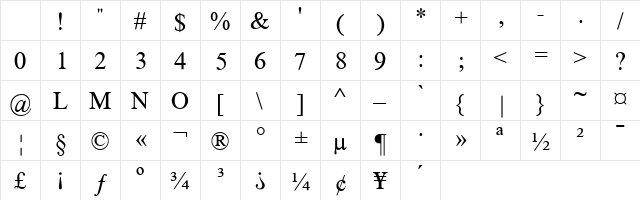
Complete Pak Nastaleeq Regular glyph index. Displaying only characters natively supported by Pak Nastaleeq Regular font.
Pak Nastaleeq is a composed and adaptable typeface that performs quietly and consistently across a wide range of design contexts.
Who designed the Pak Nastaleeq Regular font?